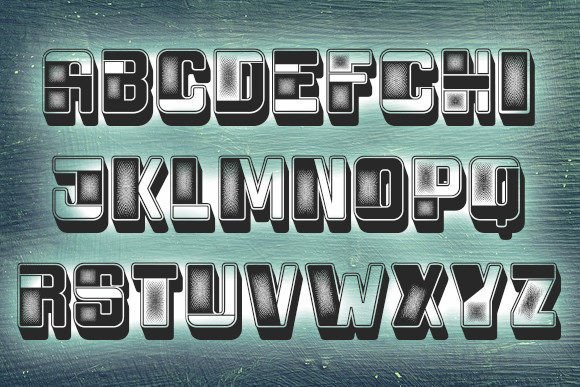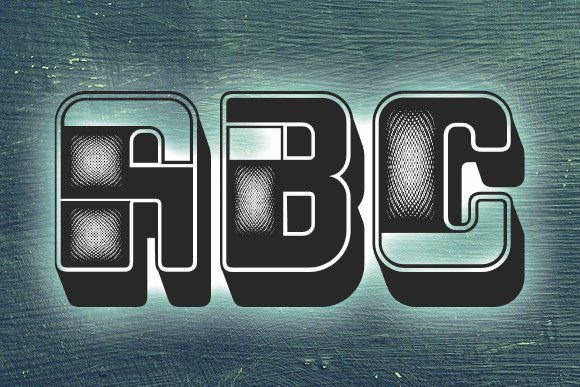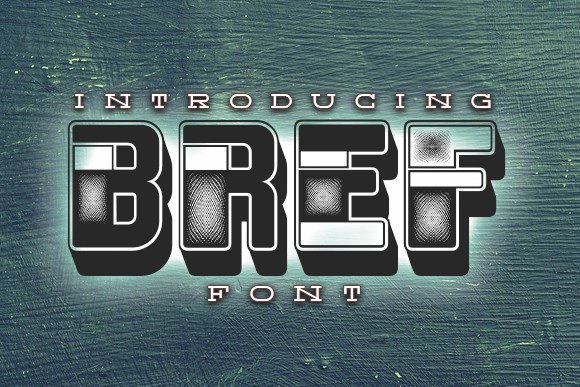
Bref Font: Elevate Your Designs with a Stunning 3D Decorative Typeface
Are you tired of using the same old fonts in your designs? Look no further! Bref Font is here to take your work to the next level. This awesome 3D decorative typeface is perfect for designers and crafters who want to add a touch of uniqueness and style to their projects. In this article, we’ll dive into the world of Bref Font and explore its features, uses, and benefits.
What is Bref Font?
Bref Font is a 3D decorative typeface that boasts a distinctive and eye-catching design. Its bold and chunky letters are perfect for making a statement, and its versatility makes it suitable for a wide range of applications. Whether you’re working on a flyer, postcard, or any other design project, Bref Font is sure to inspire your work.
Key Features of Bref Font
- Unique 3D Design: Bref Font’s 3D design sets it apart from other typefaces. Its bold and chunky letters are sure to grab attention and make your designs stand out.
- High-Quality Vectors: Bref Font is made up of high-quality vectors, ensuring that your designs look crisp and clear even at large sizes.
Uses of Bref Font
Bref Font is a versatile typeface that can be used in a variety of applications, including:
- Flyers and Brochures: Bref Font is perfect for creating eye-catching flyers and brochures that grab attention.
- Postcards and Greeting Cards: Add a touch of personality to your postcards and greeting cards with Bref Font’s unique 3D design.
- Logos and Branding: Bref Font can be used to create bold and memorable logos that make a statement.
- Social Media Graphics: Use Bref Font to create eye-catching social media graphics that stand out in crowded feeds.
Benefits of Using Bref Font
Using Bref Font in your designs offers a range of benefits, including:
- Increased Visibility: Bref Font’s bold and chunky design ensures that your message gets noticed.
- Improved Brand Recognition: Bref Font’s unique design helps to create a distinctive brand identity that sets you apart from others.
- Enhanced Creativity: Bref Font’s versatility and uniqueness inspire creativity and help to take your designs to the next level.
Tips for Using Bref Font
Here are some tips for getting the most out of Bref Font:
- Experiment with Colors: Bref Font looks great in bold and bright colors, so don’t be afraid to experiment and find the perfect color scheme for your design.
- Mix and Match: Combine Bref Font with other typefaces to create a unique and eye-catching design.
- Keep it Simple: Don’t overcomplicate your design – Bref Font’s bold design speaks for itself, so keep your layout simple and clean.